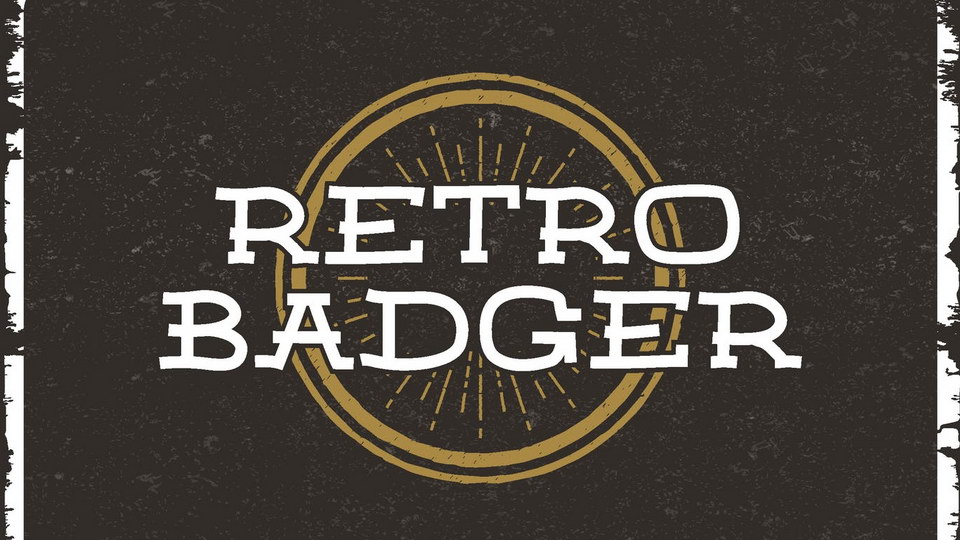
Download Retro Badger font, a serif typeface with hand-drawn feel, rough and vintage look. Retro Badger font will emphasize the old rebel passion, and adventure rage on every word you put on the screen.